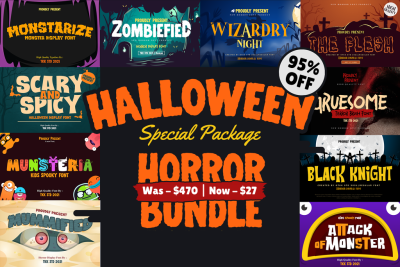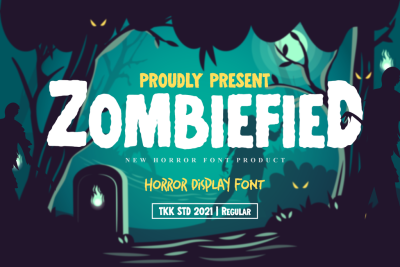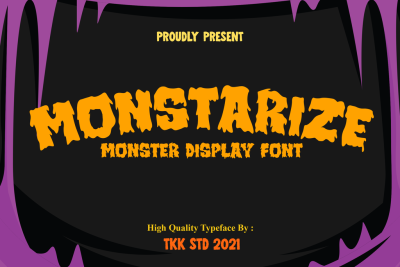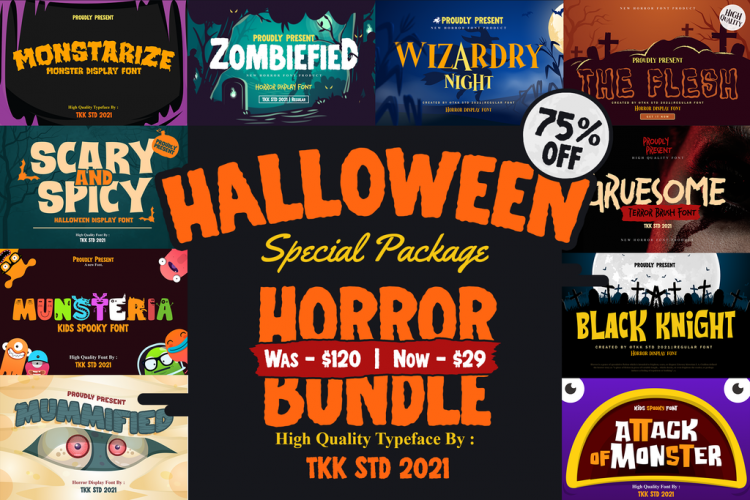
Level up your design arsenal with 10 horror fonts!
This incredible bundle of creepy fonts from Mehibi Studio supercharges your typography toolkit with a massive collection of high-quality horror fonts that send shivers down your spine with the design. Use our jagged-edge horror movie fonts, dripping effects, spooky fonts, and mystery fonts that look like they’re clawing out of the page. Limited-time offer: Get this amazing horror fonts bundle for a fraction of the price – just $27 (originally $470)!
- All fonts include basic Latin, numerals, and punctuation.